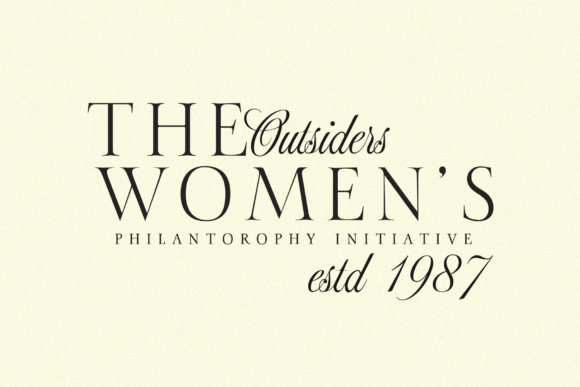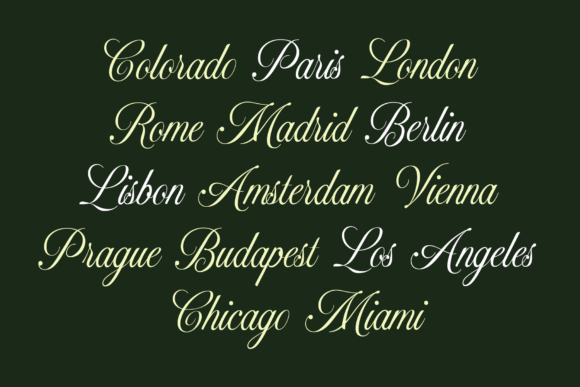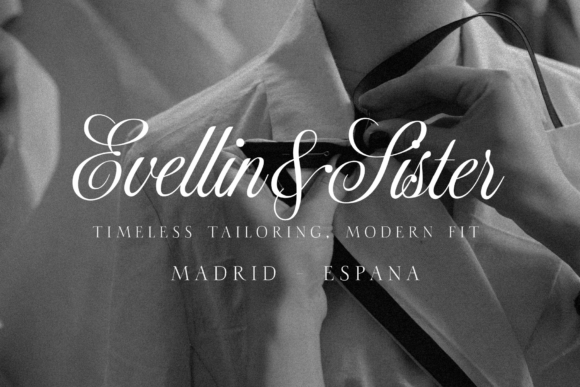
Introduction to Madison Sauvage Font
Madison Sauvage is an elegant fusion of classic serif structure and graceful calligraphic script, carefully crafted to evoke a sense of refined heritage and timeless luxury.
This typeface blends the sharp sophistication of a traditional serif with the flowing charm of hand-lettered calligraphy, creating a distinctive look that feels both regal and romantic Perfect for high-end branding, wedding designs, packaging, and editorial layouts, Madison Sauvage brings character and prestige to every letterform.
Key Features of Madison Sauvage Font
Why Choose Madison Sauvage Font?